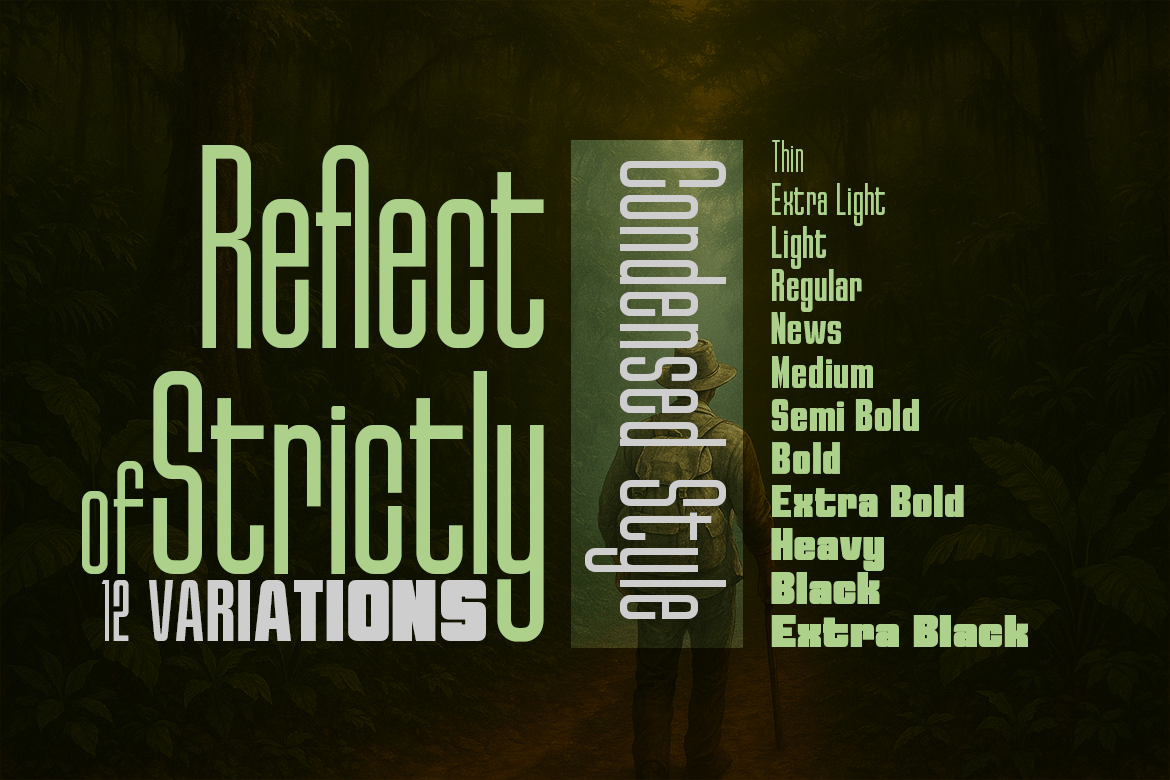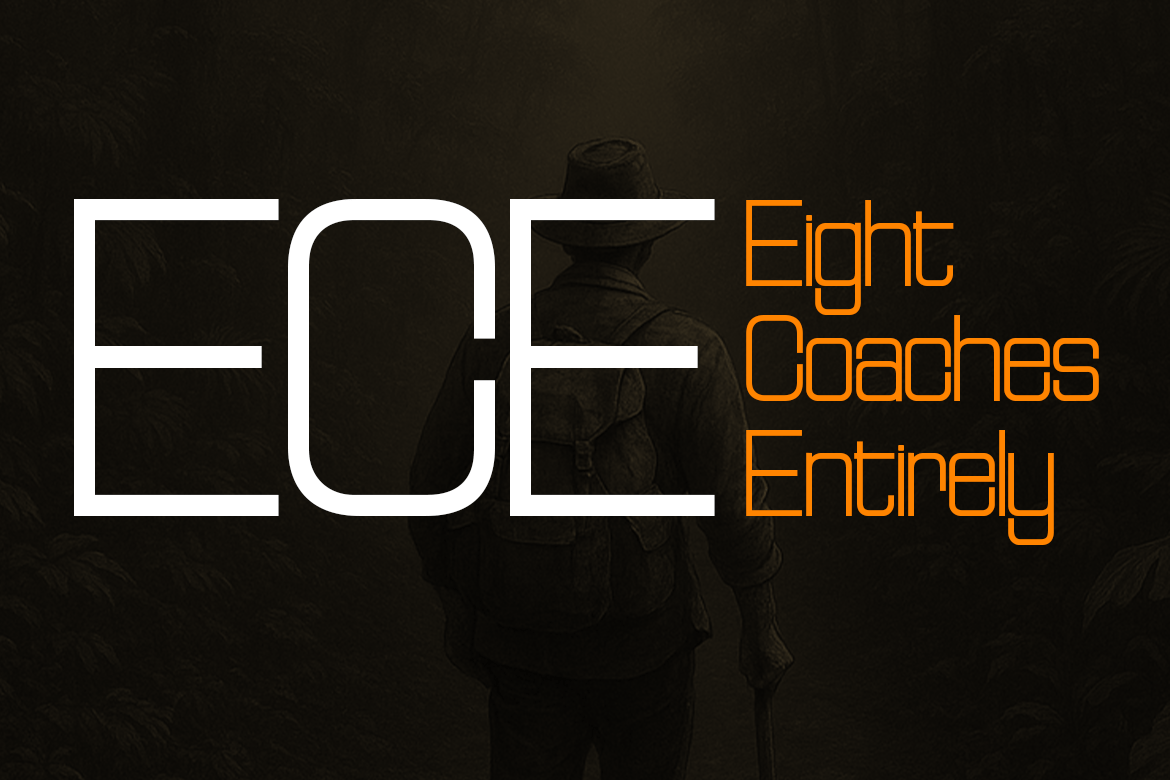
Reflect of Strictly Normal
Reflect of Strictly Normal — 12 Upright Weights
Reflect of Strictly Normal is the core and most balanced style of the entire family. It features harmonious proportions, high legibility, and a strong geometric foundation — making it a versatile workhorse for both display and professional design applications.
This width reflects the purest expression of the font’s DNA: clean, disciplined, and modern. It adapts well to large headlines, responsive digital layouts, or tightly structured corporate environments.
Ideal For
• Hero titles and main display text
• Branding and logo design
• Corporate identity systems
• Editorial layouts and magazine design
• Advertising and high-impact visuals
• Digital product and web design
With 12 upright weights from Thin to Extra Black, the Normal width offers complete typographic control, from delicate minimal styles to dramatic bold statements.
The Reflect of Strictly Normal font family includes 344 glyphs.